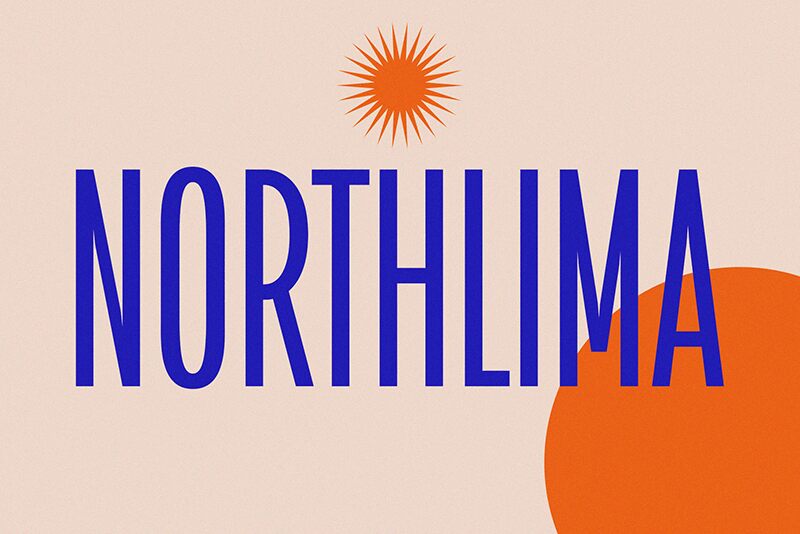
Northlima
Northlima, a captivating sans-serif font designed by BrandSemut, exudes a bold and refined aesthetic. Its condensed width lends a distinctive flair, creating a harmonious balance between elegance and strength. The sharp, angular letterforms evoke a sense of modern sophistication, while the overall composition maintains a sleek and polished appearance.
This versatile font shines in a variety of design contexts, from headlines and logotypes to editorial layouts and branding materials. Its compact nature makes it an excellent choice for projects requiring a clean, impactful, and space-efficient typographic solution. Northlima's versatility allows designers to seamlessly incorporate it into a wide range of design styles, ensuring a cohesive and visually striking outcome.